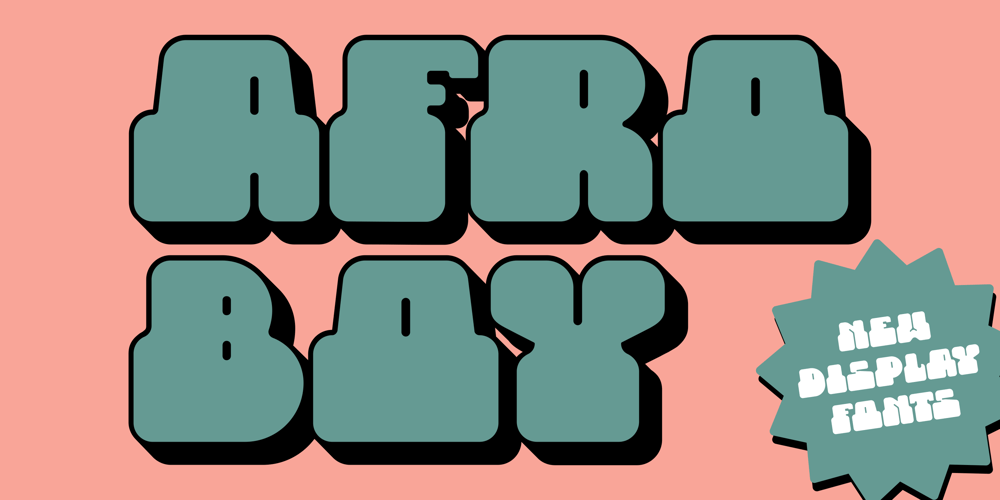
WTF Afroboy Font Family was designed by Miftahul Habib and published by Wasabib Type Foundry. WTF Afroboy contains 1 styles and family package options. Afroboy Display Font is an obese font with a simple, and modern look. Afroboy Display Font created with the vision of to attract the audience to your brand. The finest details of this typeface are methodically and mathematically created. Afroboy is created with all the tasks of a corporate font and also for the usage in a variety of projects, including branding, logos, titles, headlines, posters, screens, display, digital ads, and everything else.